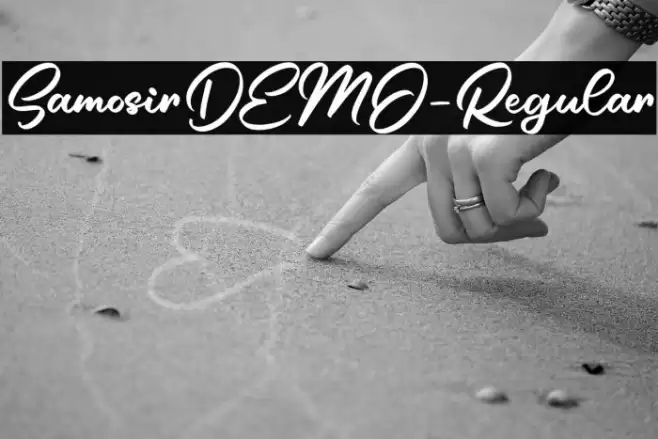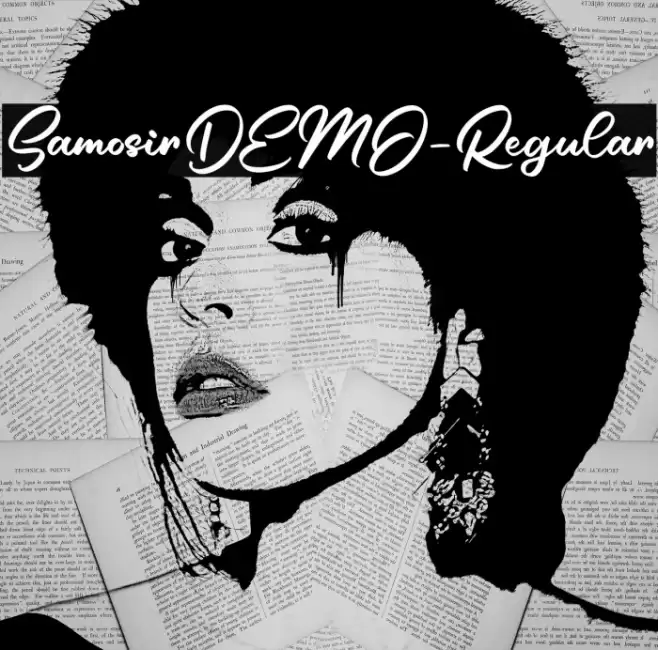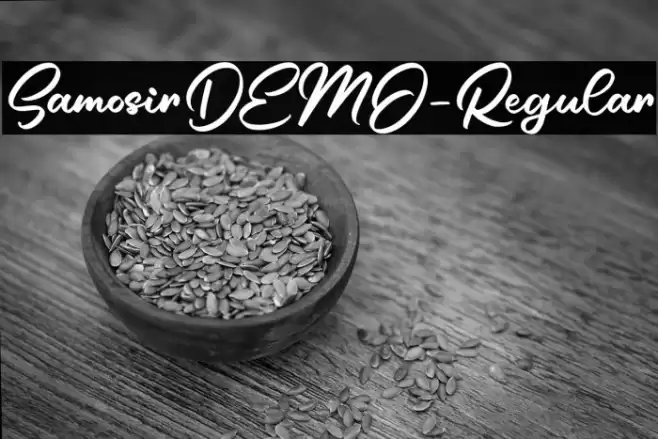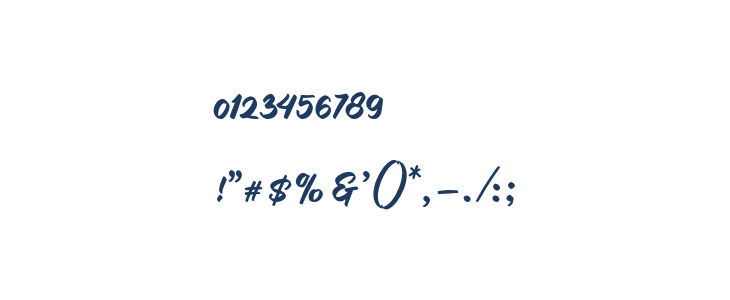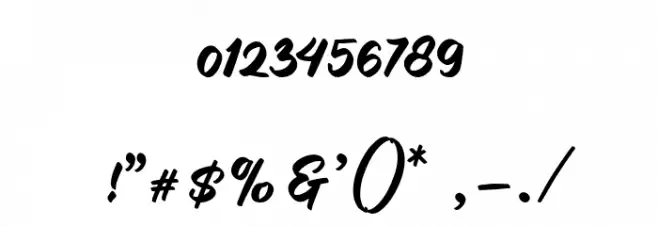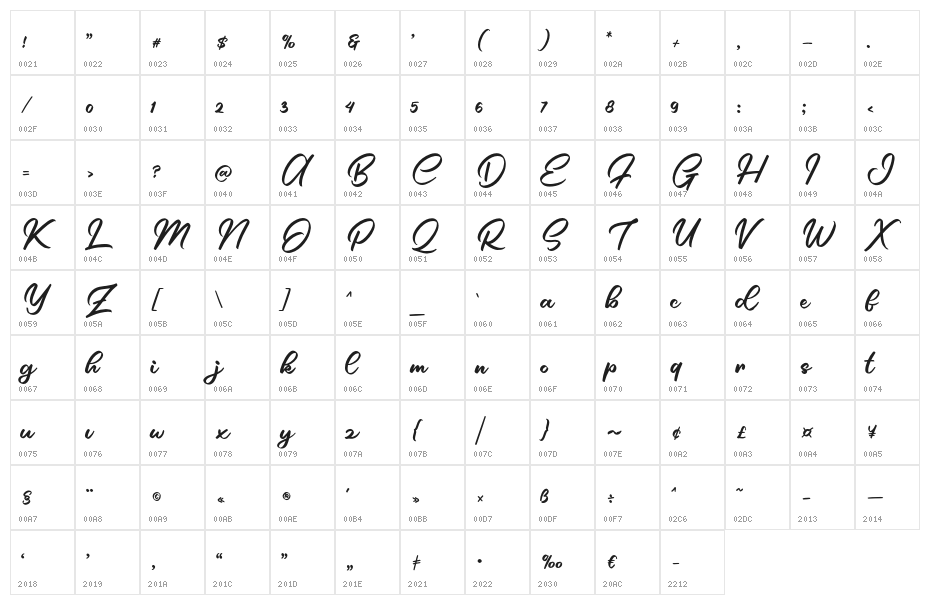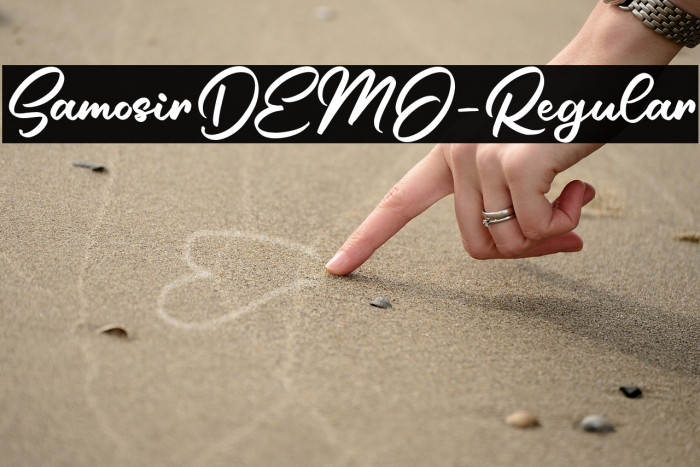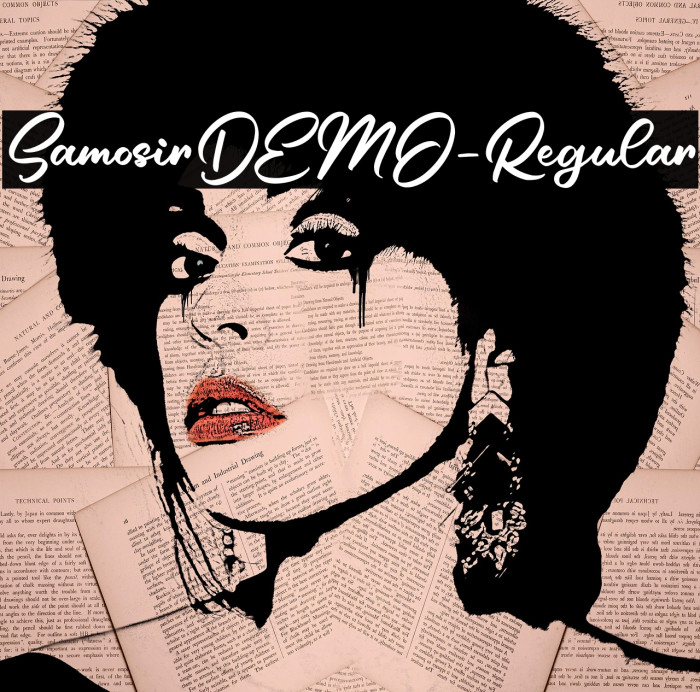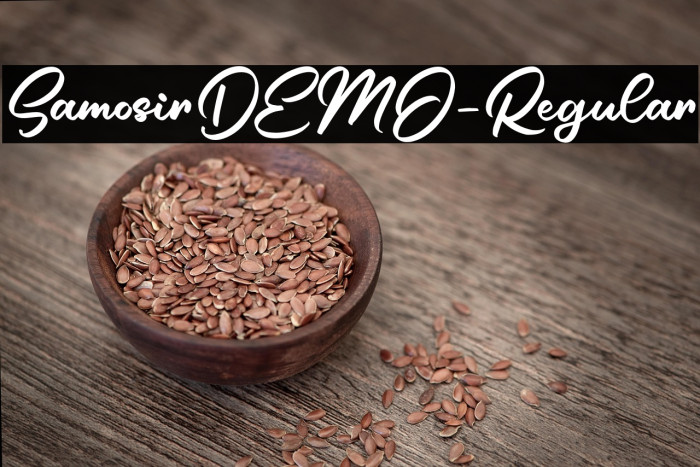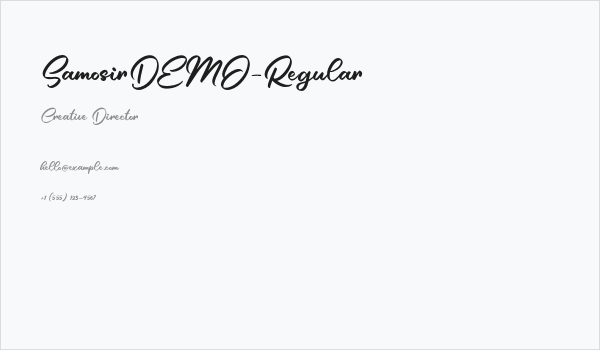
SamosirDEMO-Regular Font
SamosirDEMO-Regular Description
This font features a flowing, cursive style with elegant, sweeping strokes that give it a sophisticated and artistic appearance. The uppercase letters are bold and prominent, while the lowercase letters maintain a consistent flow, enhancing readability. The numerals are distinct and match the overall style, ensuring uniformity across different text elements. Special characters are designed with the same fluidity, making them blend seamlessly with the letters and numbers. The font's design is ideal for projects that require a touch of elegance and creativity.
A cursive font with elegant, flowing strokes and artistic style from Regular fonts.
- Proposed Projects: Ideal for wedding invitations, greeting cards, branding, and artistic projects.
- Overall Style: Elegant, Artistic
- Use Case: Headlines, Invitations, Artistic designs